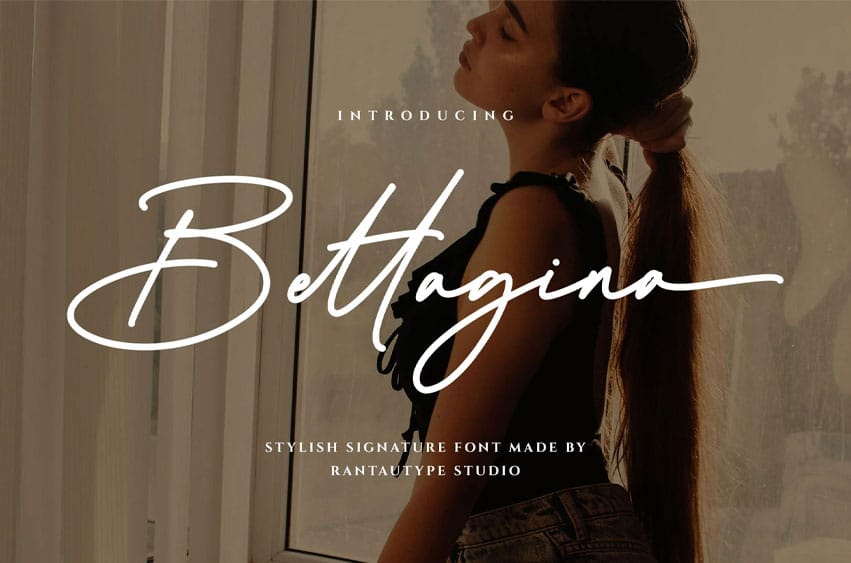
Bettagina Font is a stylish signature font with exudes sophistication and modernity, often with graceful curves and flowing connections between letters. Bettagina comes with smooth, continuous strokes with consistent line thickness, emulating elegant handwriting
Bettagina is a perfectly choice for any creative endeavor, creating, modern, lifestyle design such as logotype, title, cover, branding, invitations, wedding designs, display and magazine, social media posts, advertisements, printed quotes, product packaging, corporate brand, product designs, labels, photography, watermarks, special events and any other project with handwritten feel.